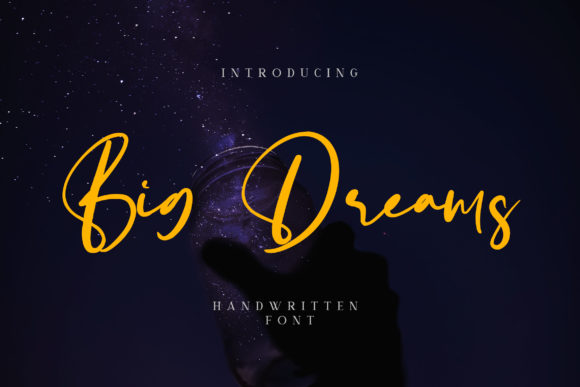
The Magic of Big Dreams Font: Elevating Your Designs with Elegance
Big Dreams font simplifies elegance into one truly outstanding handwritten font. Whether you’re looking for fonts for Instagram or calligraphy scripts for DIY projects, this font will turn any creative idea into a true piece of art! In this article, I’ll share my honest review of Big Dreams font, provide a practical guide on how to use it, and explore similar fonts that you might love.
• πŸ’« Elegant and sophisticated, perfect for high-end designs
• βœ… Highly versatile, suitable for various design projects, from wedding invitations to social media graphics
• 🎨 Beautifully crafted, with intricate details and a unique character
• πŸ–ŒοΈ Supports OpenType features, glyphs, and stylistic alternates, giving you plenty of creative options
The Not-So-Good: πŸ€”
• ⚠️ Some characters may not work well in smaller font sizes, so be mindful of legibility
• 😐 Limited availability of certain language scripts, so double-check compatibility
The Story Behind Big Dreams Font
Big Dreams font was created with the intention of bringing a touch of elegance and whimsy to design projects. The font’s designer aimed to craft a unique, handwritten font that would inspire creativity and add a personal touch to any design. With its intricate details and beautiful character, Big Dreams font has become a favorite among designers and crafters alike.
Q: What type of designs is Big Dreams font best suited for?
A: Big Dreams font is perfect for designs that require a touch of elegance and sophistication, such as wedding invitations, DIY crafts, and social media graphics.
Q: Does Big Dreams font support OpenType features?
A: Yes, Big Dreams font supports OpenType features, including ligatures, stylistic alternates, and glyphs. This allows you to add a personal touch to your designs and experiment with different typography styles.